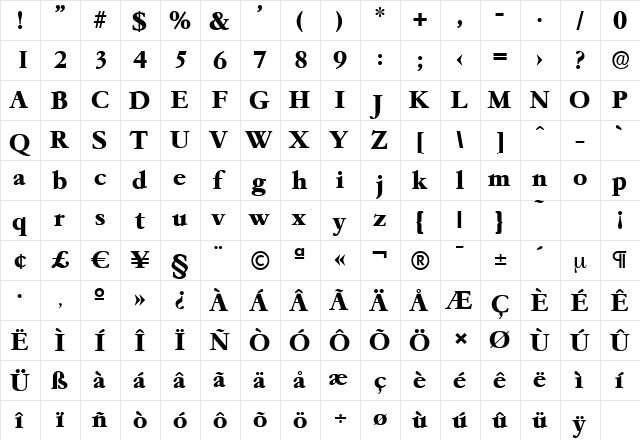
GarfeldSerial-Xbold Regular
Design Context for GarfeldSerial-Xbold Typeface
GarfeldSerial-Xbold takes a measured approach to typography — its balanced proportions and neutral character make it a reliable workhorse for both digital and print work. The heavy weight commands attention and anchors typographic hierarchies.